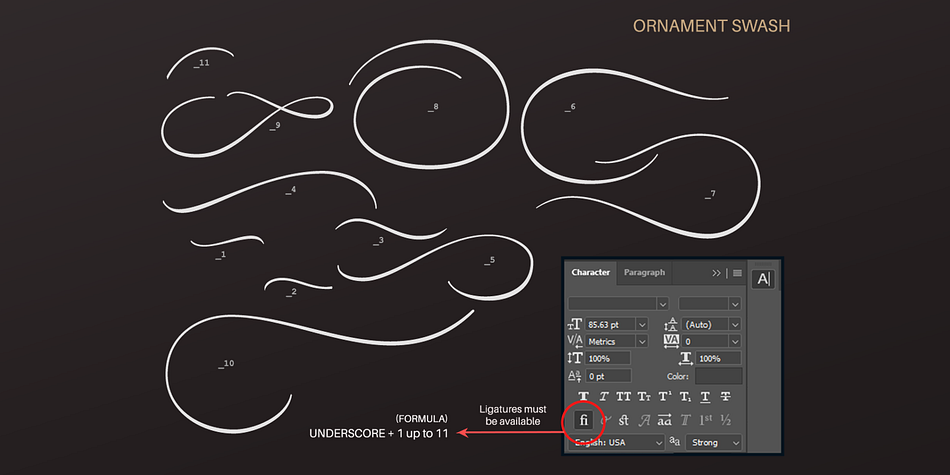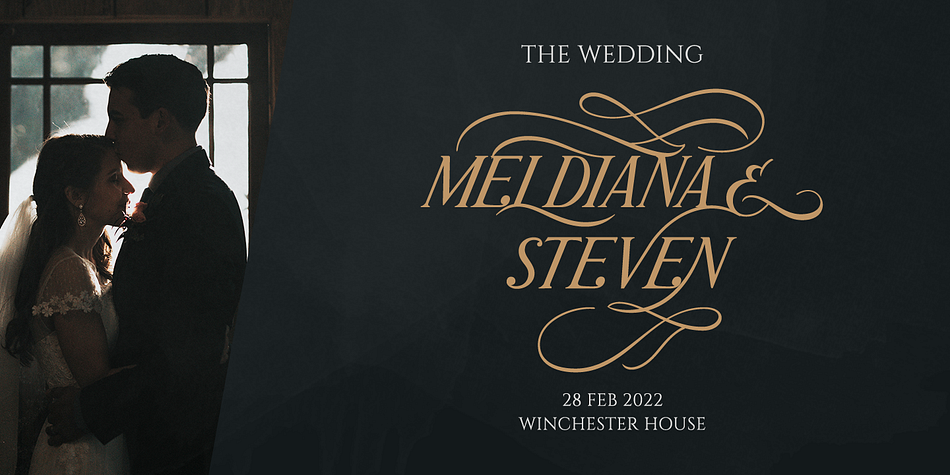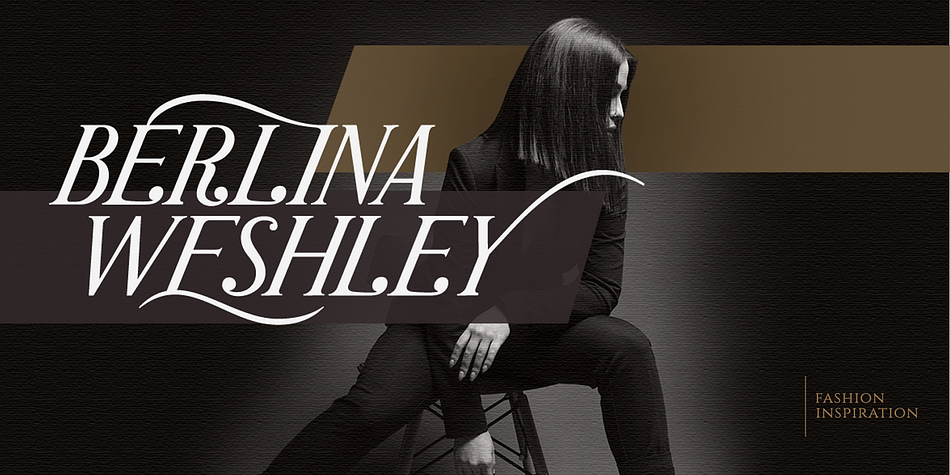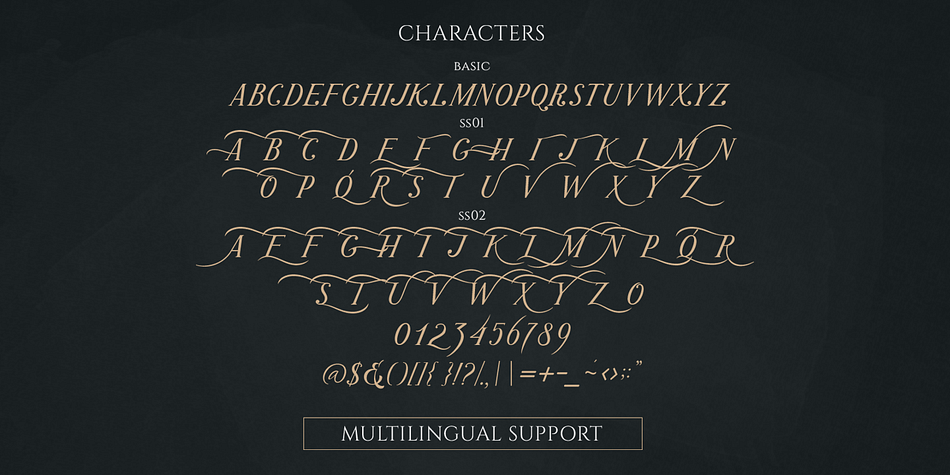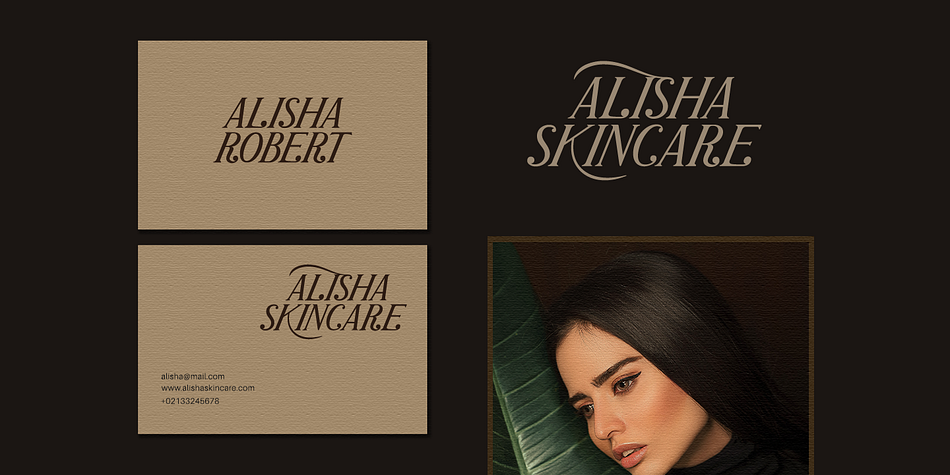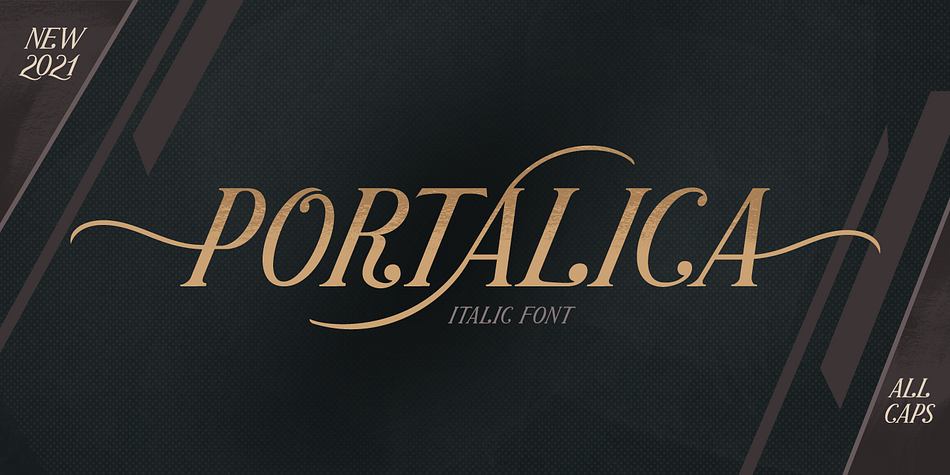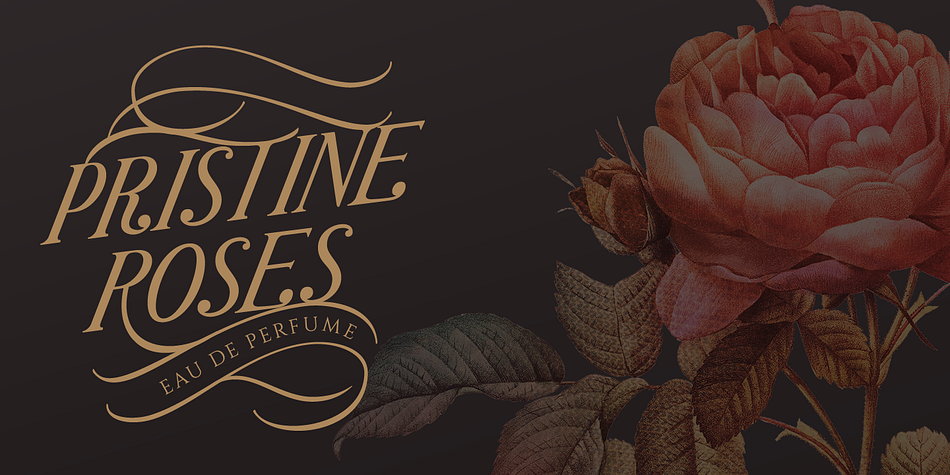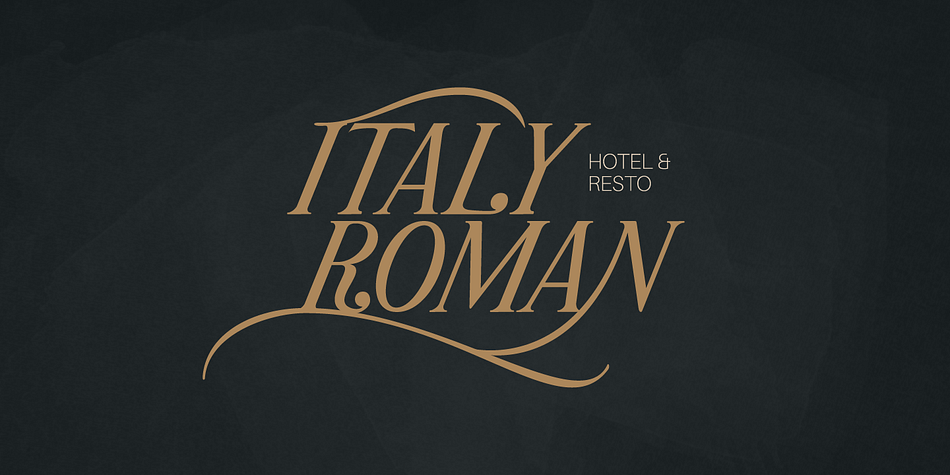
Designed by Hendry Juanda, Portalica is a display serif font published by Letterhend Studio.
Introducing our newest typeface called Portalica - A Stylish Italic Serif font. This typeface has many alternates with swashes that can make your lettering / logotype become more interesting. The clean and neat of a serif combined with the swirl swashes makes this font one of a kind!
This font perfectly made to be applied especially in logo, and the other various formal forms such as invitations, labels, logos, magazines, books, greeting / wedding cards, packaging, fashion, make up, stationery, novels, labels or any type of advertising purpose.
- ligatures
- alternates
- swashes